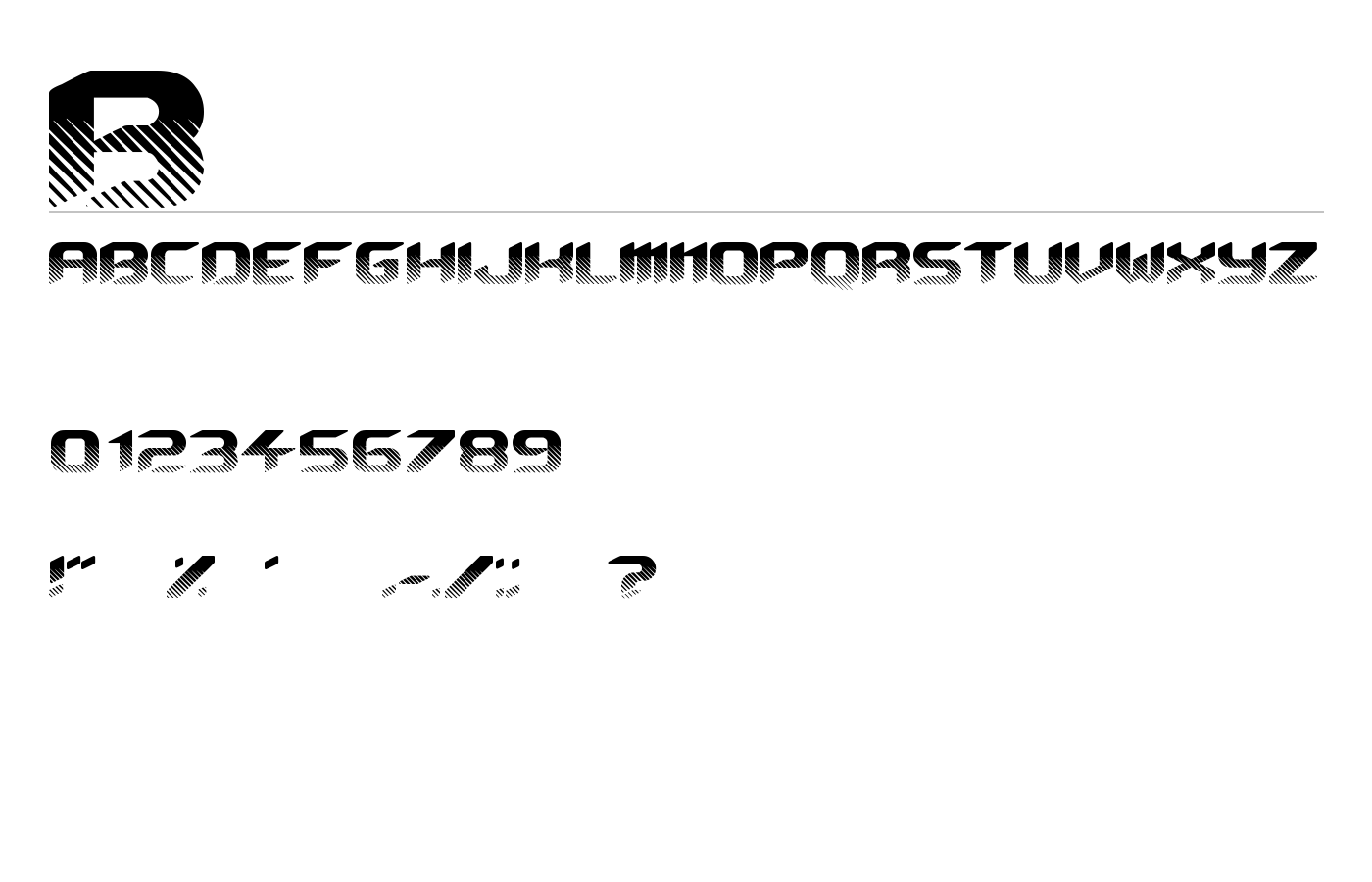
Beyond Font
About Beyond Font
Beyond Font is a bold, futuristic sans serif typeface with a strong, condensed structure and a unique striped gradient effect that adds dynamic visual interest. Its sharp angles and geometric forms convey a modern, edgy vibe, making it ideal for impactful headlines, tech branding, and creative digital projects that want to stand out with a sleek and innovative look.